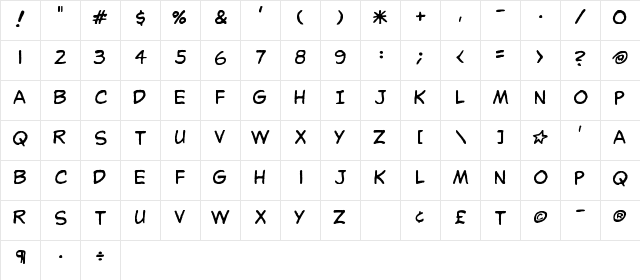
OdaBalloon Regular
Design Context for OdaBalloon Typeface
OdaBalloon is a composed and adaptable typeface that performs quietly and consistently across a wide range of design contexts.